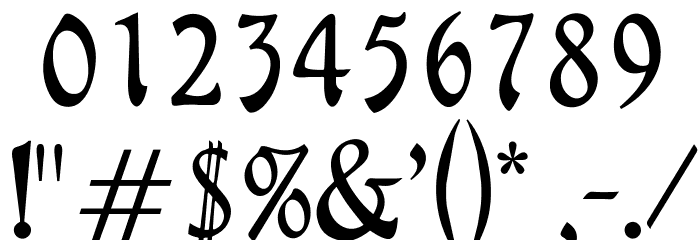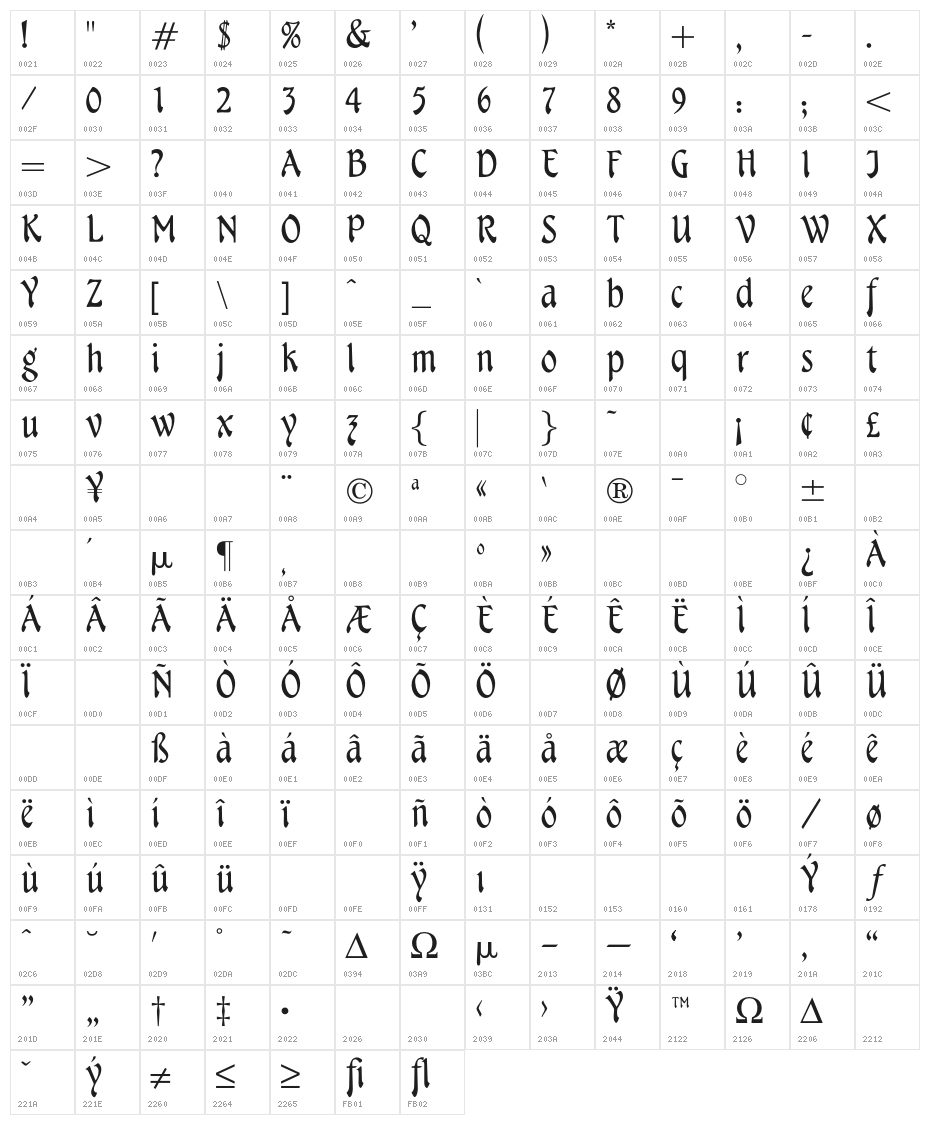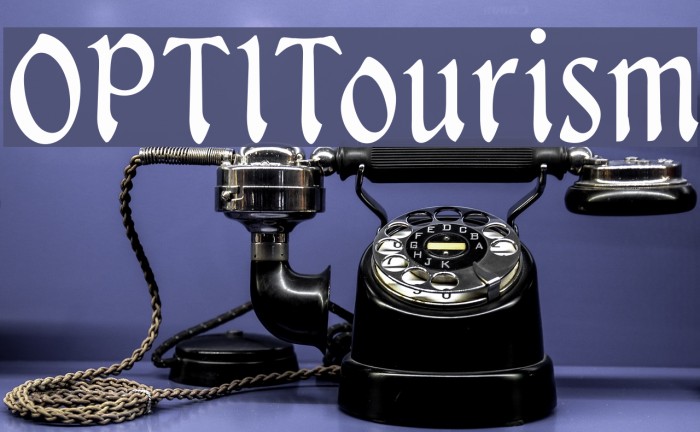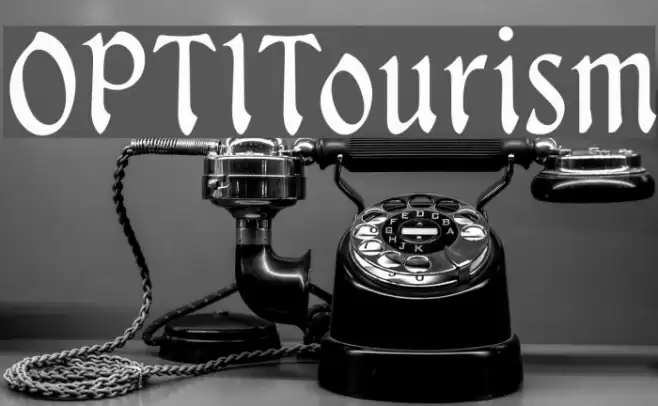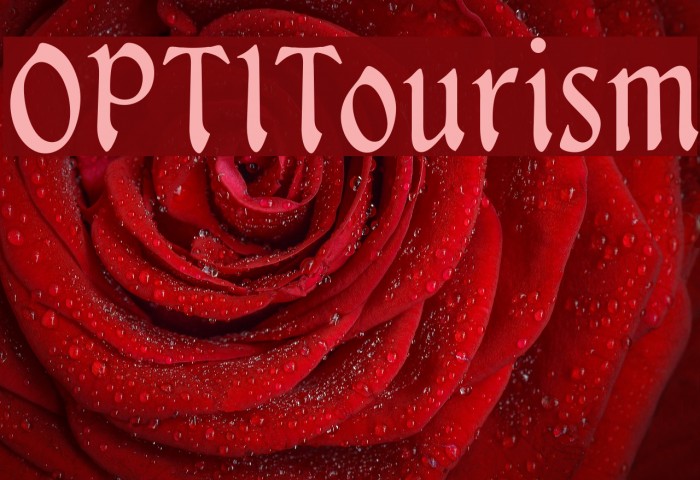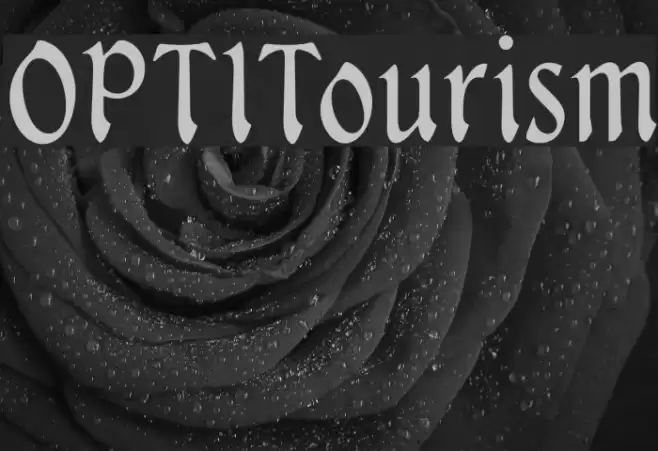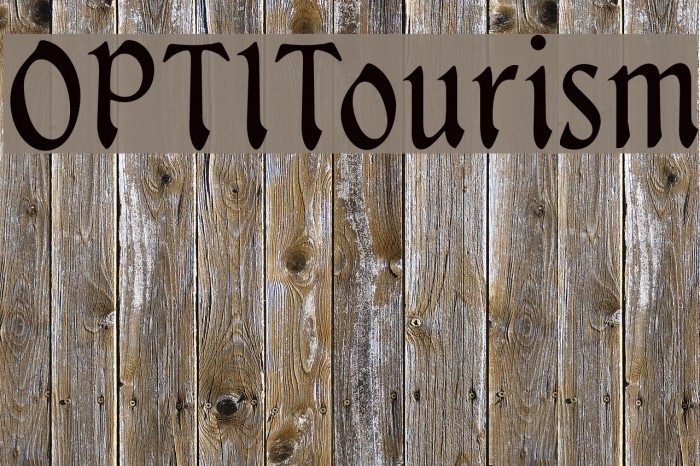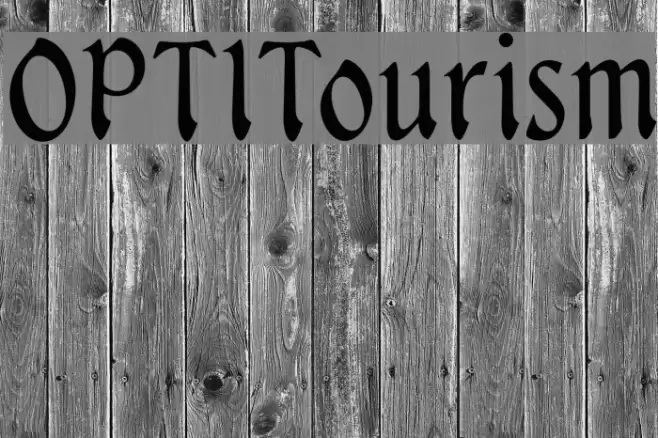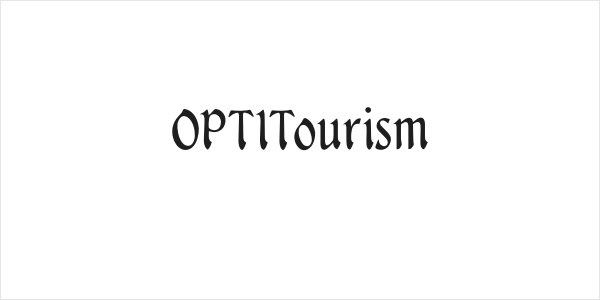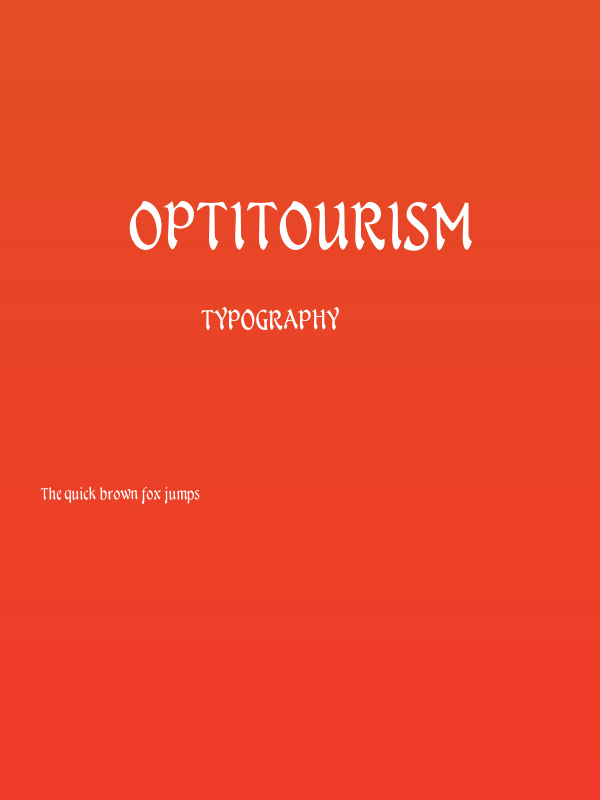
OPTITourism Font
This font features a distinctive, elegant style reminiscent of traditional calligraphy with a modern twist. The characters are crafted with a high contrast between thick and thin strokes, giving it a dynamic and sophisticated appearance. The serifs are pronounced, adding a touch of classic elegance, while the overall design maintains a sense of fluidity and movement. The uppercase letters are bold and commanding, while the lowercase letters offer a more delicate and refined look. The numerals are consistent with the overall style, providing a cohesive and harmonious appearance. Special characters are thoughtfully designed to complement the alphabet, making this font versatile for various uses.